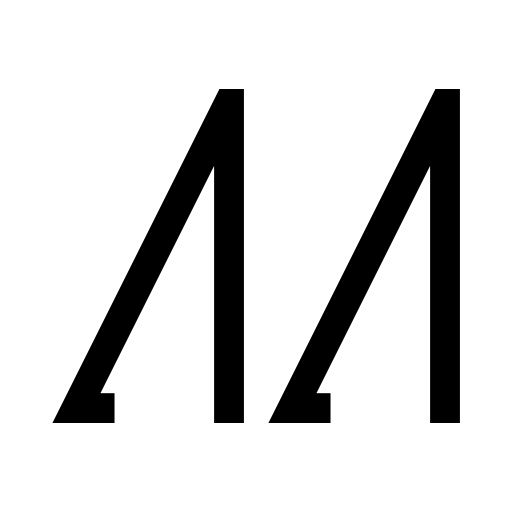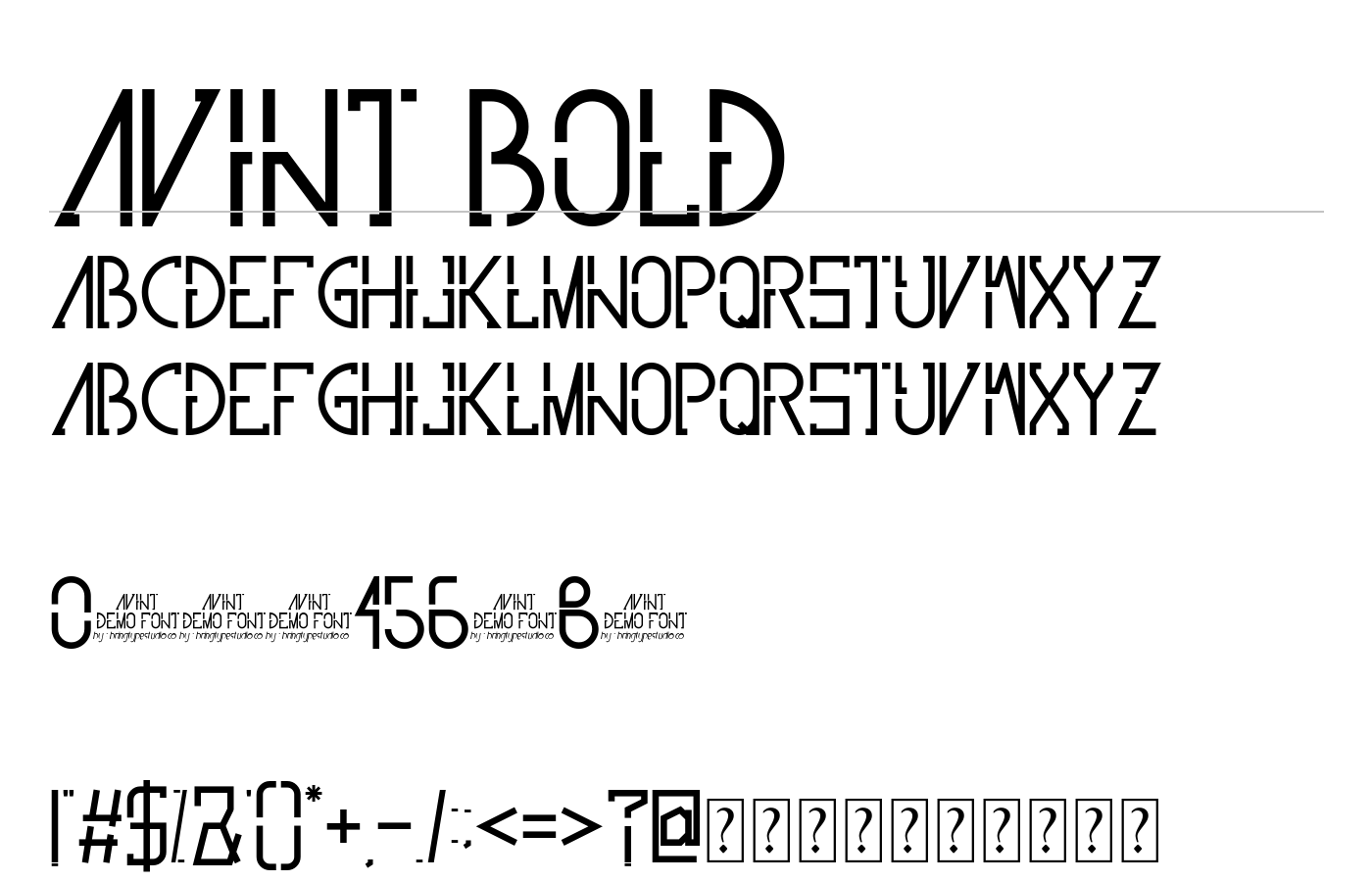
Avint Regular is a modern, geometric sans-serif font with a unique, futuristic style characterized by its tall, narrow letterforms and sharp angles. Its high contrast between thick and thin strokes alongside unconventional shapes make it stand out, perfect for bold, eye-catching headlines and creative branding that seeks a cutting-edge, avant-garde vibe. This font works well in editorial design, posters, and logos where a distinctive, artistic statement is desired.
Avint Regular Font
About Avint Regular Font